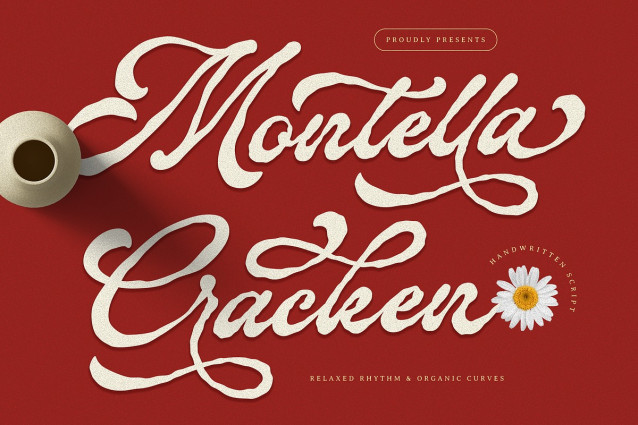
Montella Cracken Font
Montella Cracken Font is a natural handwritten script font crafted with relaxed rhythm and organic curves — designed to feel like real pen-on-paper lettering. Every stroke carries the subtle imperfections and flowing energy of genuine calligraphy, making it one of the most authentic script typefaces for modern design projects.
Unlike stiff digital scripts, Montella Cracken breathes. Its natural stroke contrast, organic baseline movement, and expressive letterforms bring warmth and personality to any design — from wedding invitations and boutique branding to food packaging and social media content.